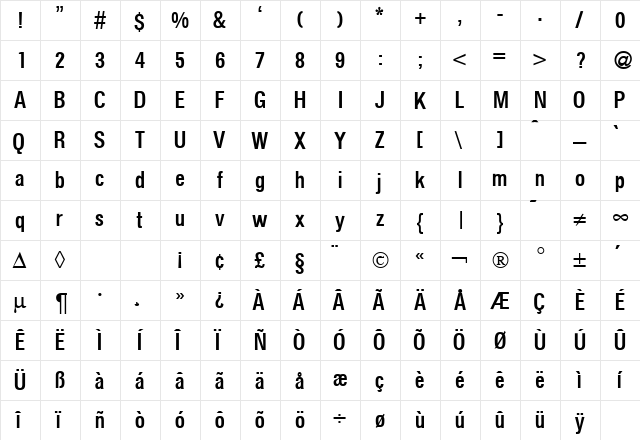
FocusCondMedium Regular
Design Context for FocusCondMedium Typeface
FocusCondMedium takes a measured approach to typography — its balanced proportions and neutral character make it a reliable workhorse for both digital and print work. Its narrow stance lets it pack a punch even in space-constrained designs.